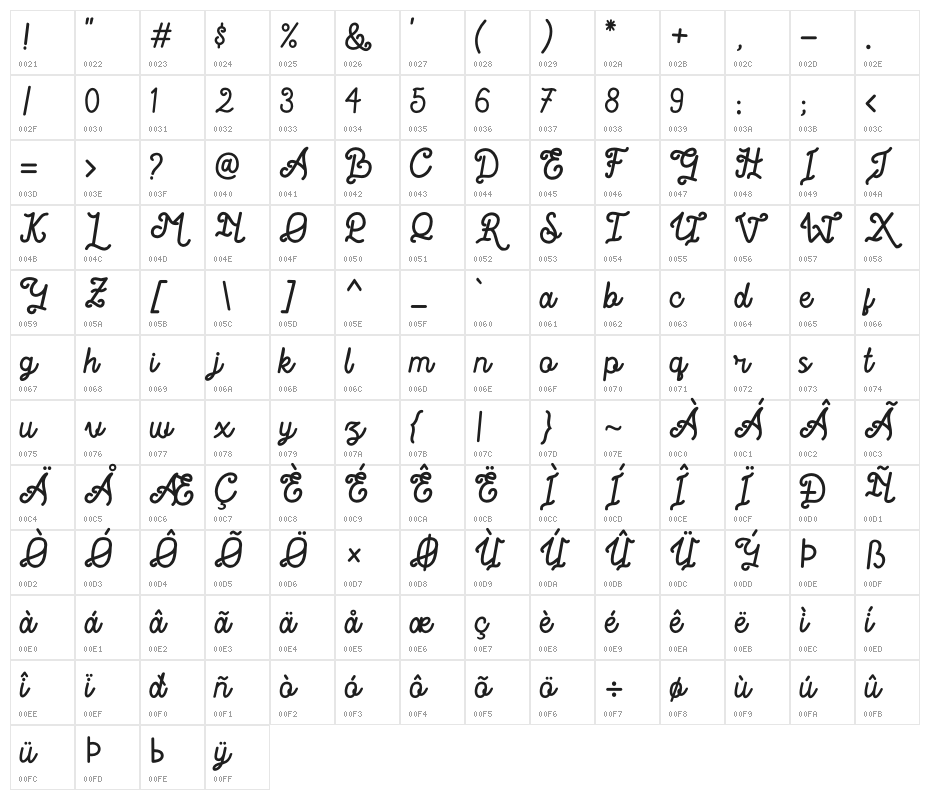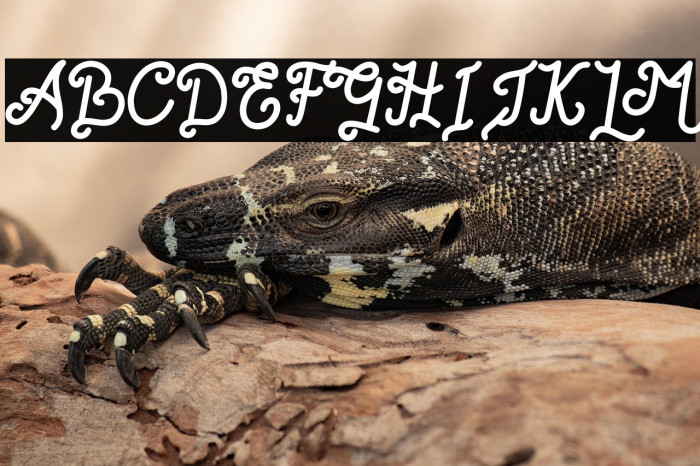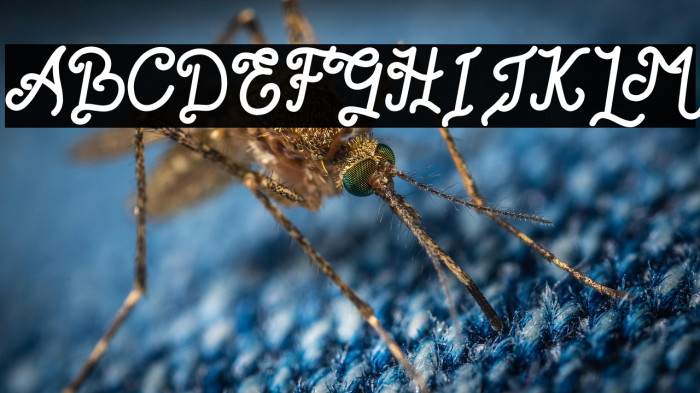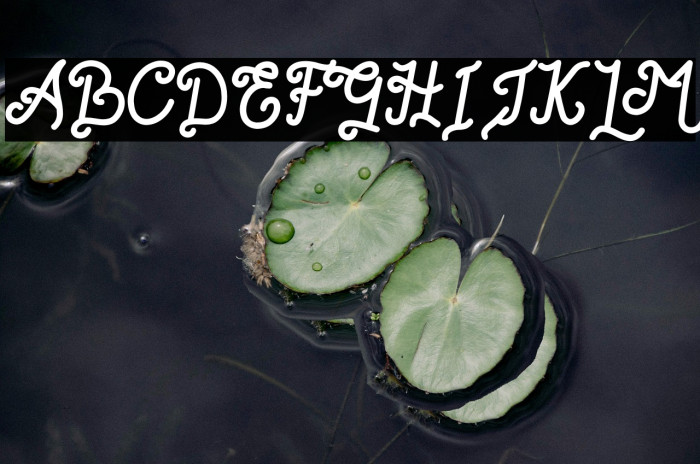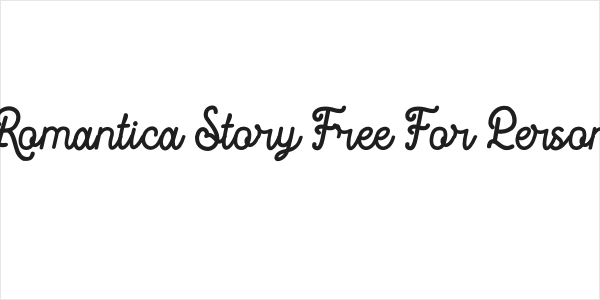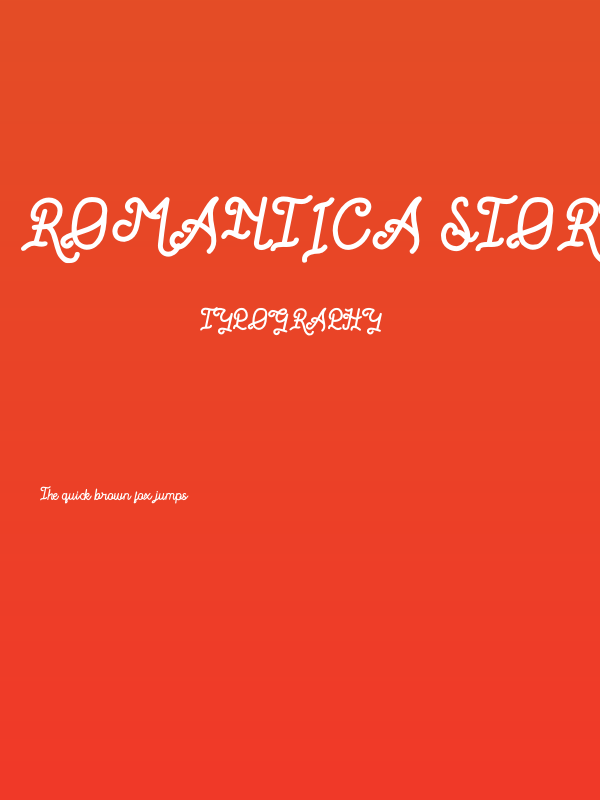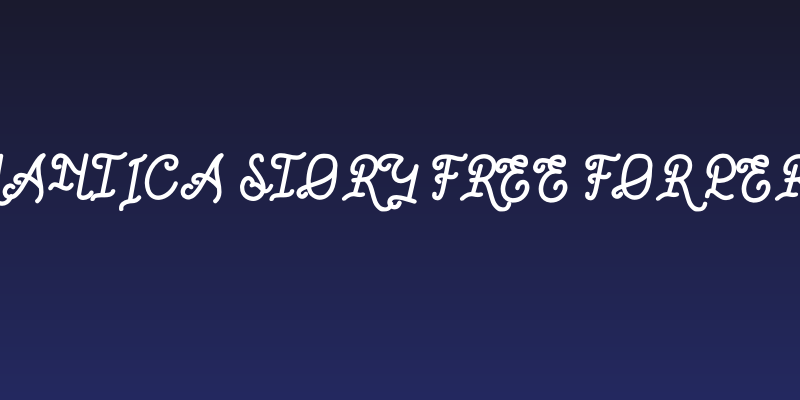
Romantica Story Free For Person Font
Romantica Story Free For Person Description
This font features a playful and whimsical script style with elegant curves and flourishes. The uppercase letters are characterized by their decorative loops and swirls, giving them a unique and artistic flair. The lowercase letters maintain a smooth and flowing appearance, enhancing readability while retaining a sense of charm. Numbers and special characters are designed to complement the overall style, with consistent line thickness and rounded edges. This font exudes a romantic and storybook-like quality, making it ideal for creative and expressive projects.